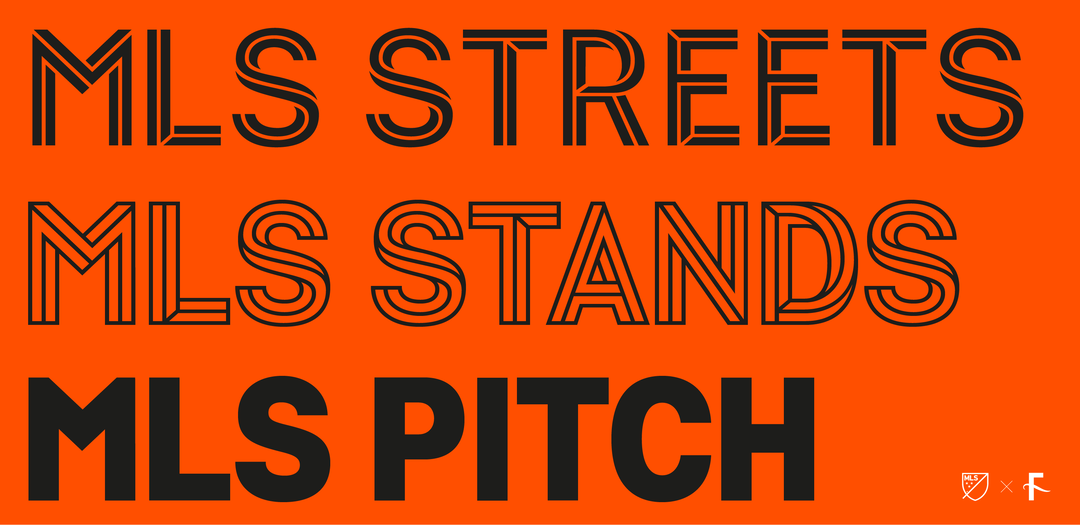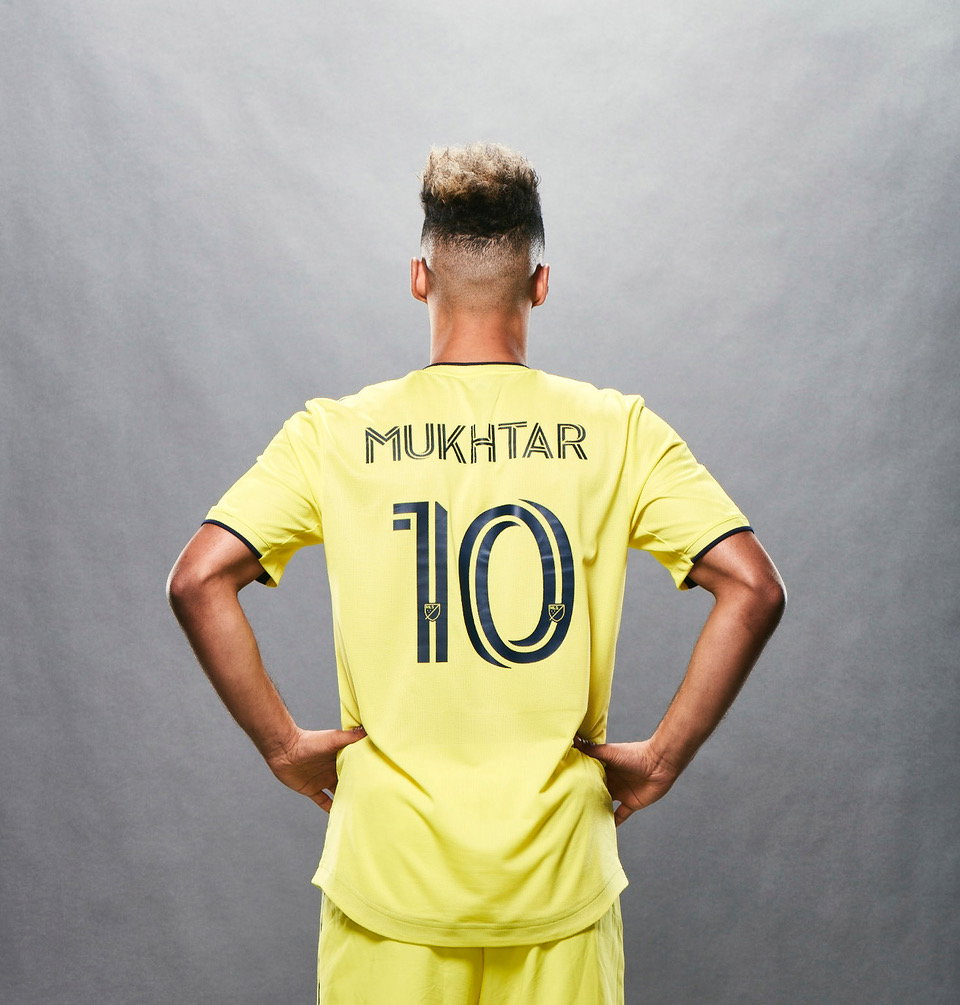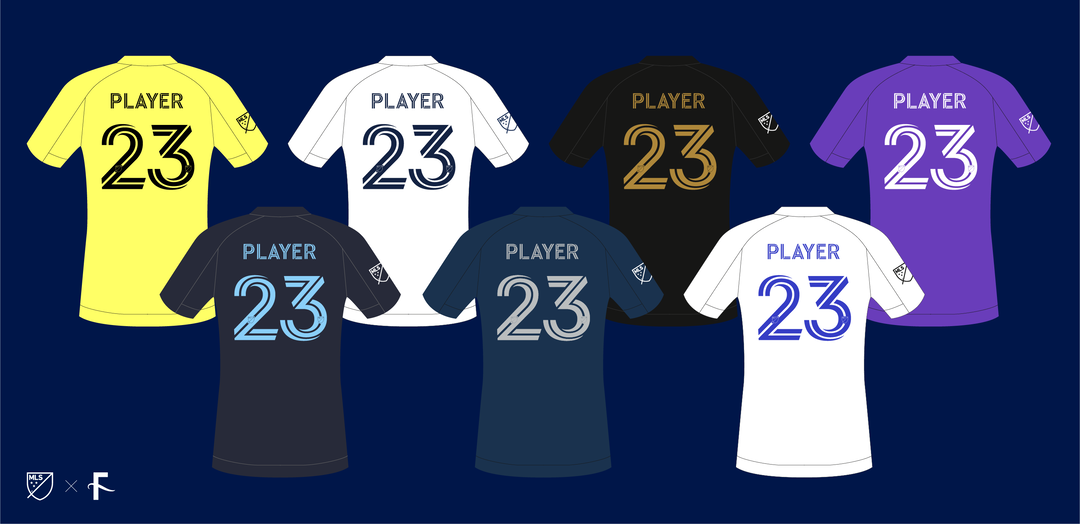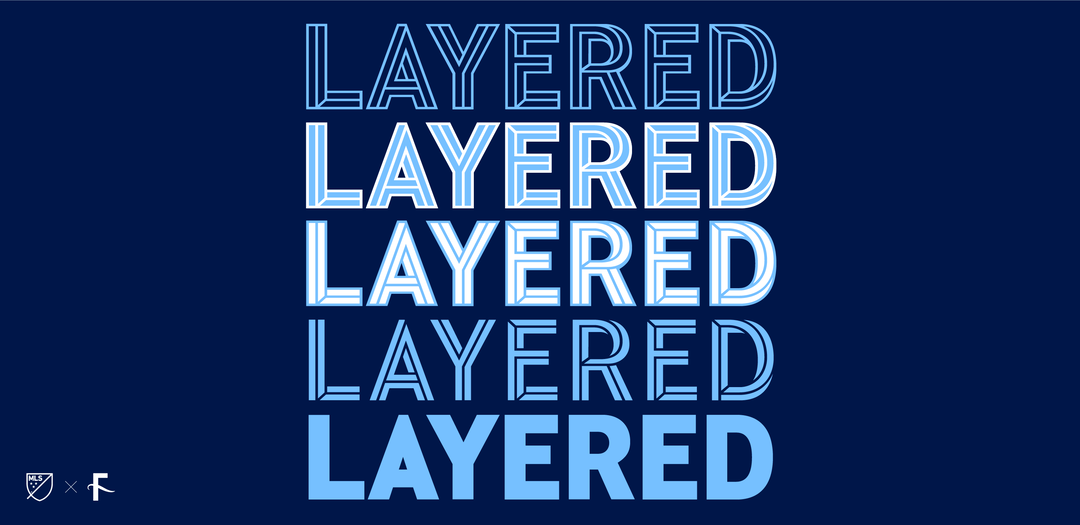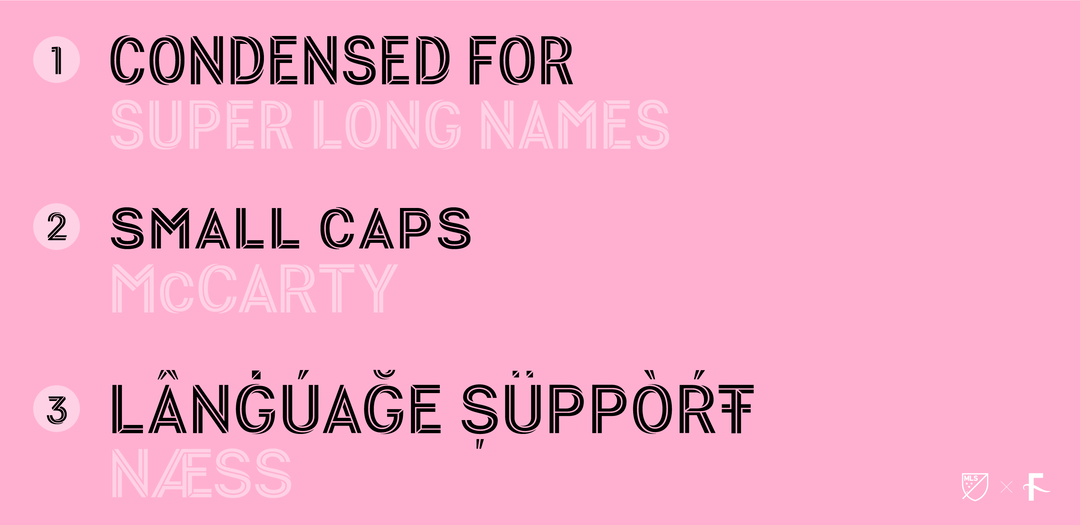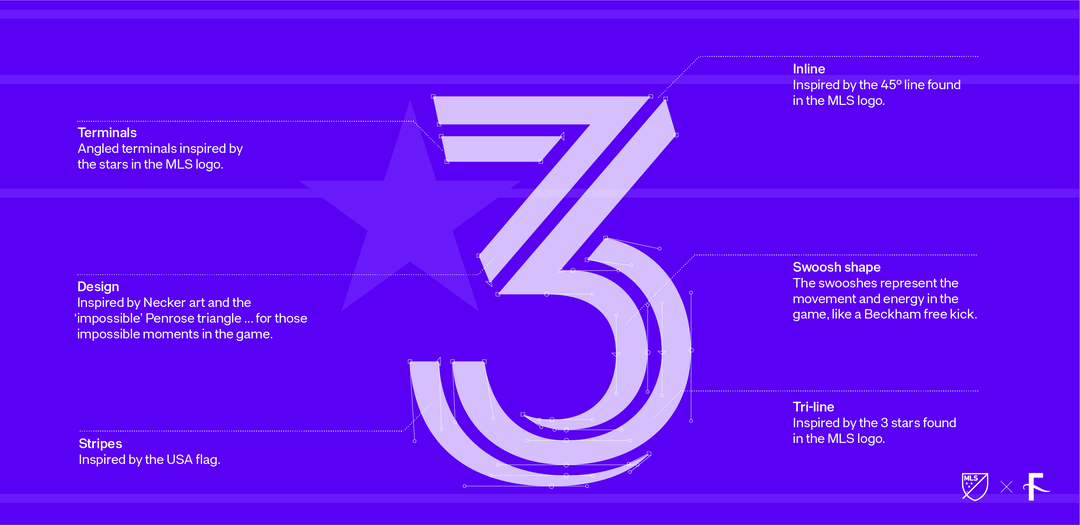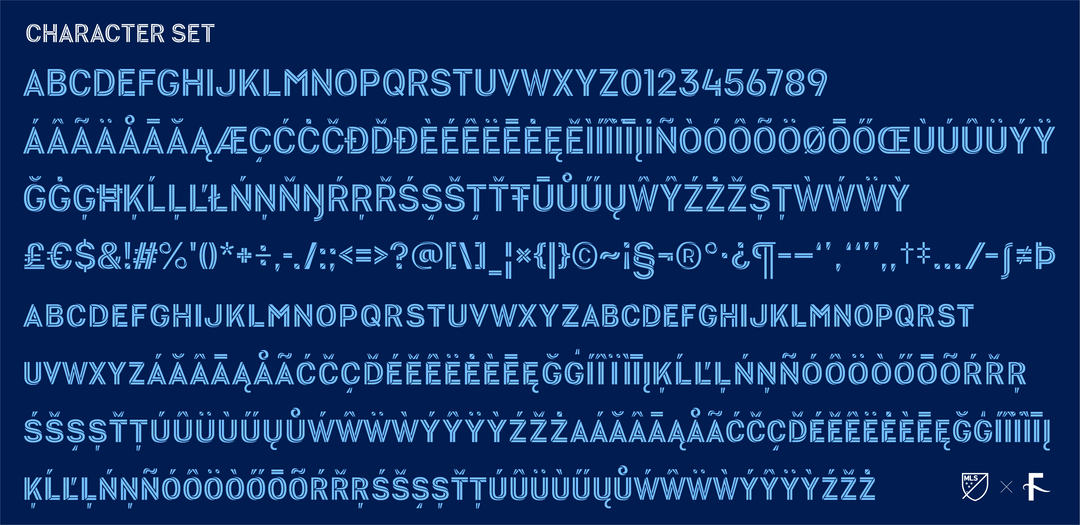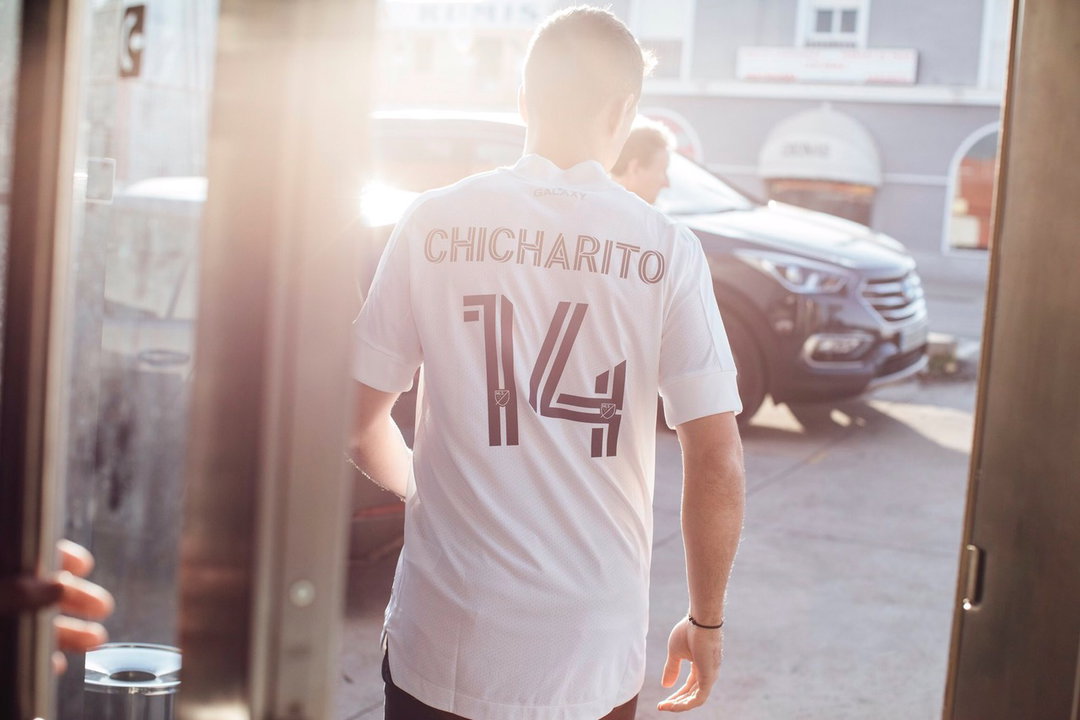
Major League Soccer reveals 2020 kits, with a new bespoke typeface by Rick Banks
To mark the league’s 25th season, MLS asked Banks to redesign the names and numbers for all the clubs’ kits without being just “another vanilla condensed sans serif”.
Last night, Major League Soccer (the top men's professional soccer league in the US) unveiled all 26 of its new kits for the 2020 season, its 25th – and therefore the cause for a redesign. The league’s creative team got in touch with Rick Banks, who runs Face37 Foundry, to create new lettering for the names and numbers on all the clubs’ kits, reflecting the league’s unique position in global football.
“The MLS is a modern, progressive and innovative league that is underpinned by being edgy, embracing technology and innovation,” Banks tells It’s Nice That. “They wanted this progressive mantra to be reflected in the lettering, and were keen not to follow other football leagues around the world. They wanted something with originality, character and had strong ideas behind it — not another vanilla condensed sans serif.”
The bold, graphical typeface comes in three weights, MLS Streets, MLS Stands and MLS Pitch, and is inspired by the Penrose Triangle (or Impossible Triangle) and Necker Cube, Banks explains. “It’s a simple optical illusion that makes you look twice. And then look again. It seems impossible, but there it is, like some magic skills on the pitch. When layered on top of each other, the three weights create a “tri-line, something never before seen in football shirt lettering. This creates an energetic, 'swooshing' optical effect, representing the movement and energy in the game, like a Beckham free kick or an Ilsinho step over.”
Also, where possible, the angle of the number terminals follows the points of the three stars that appear on the MLS logo. Versatility was an important part of the brief, as the type needed to be used in many different configurations to suit different applications. MLS Streets, for instance, is featured on shirts and shorts, while the other weights can be used, at the discretion of the league, on banners around stadium and for online and social media use.
When it came to designing the kits, there were plenty of technical considerations. It had to be produced in a single colour, but work across all the different clubs’ colours. The kit manufacturer dictated restrictions on dimensions, along with terminals that had a 2mm cornered radius. And, bearing in mind the international spectrum of footballers in the league, the font also needed to have broad language support, including a range of accents, ligatures and small caps “to cover any eventuality we could think of,” Banks says. “We also crafted a specially condensed font for longer names (the Latvian player Andriuškevičius immediately springs to mind!). We hate when fonts get stretched for super long names, like Alexander-Arnold’s Premier League shirt.”
Not only that, the design needed to work “beyond the jersey” on products and marketing material, so it had to be a kerned OpenType font, “not just a bunch of vectors,” Banks says.
But the biggest challenge, he concludes, was coming up with an idea that would please everyone. “After collating all the lettering for my books, Football Type and Football Type 2 (out later this year) it was hard to design something that no one else has done before. But we think it’s super unique. We don’t think any other football league uses a layered font across a variety of comms. And the feedback on Twitter (following some leaked images ahead of the launch) has already been fantastic.” The type will be rolled out across the coming 2020 season.